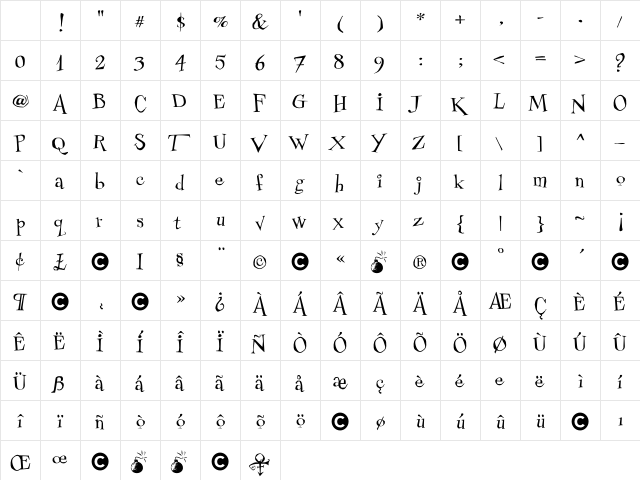
Complete Couchlover 97 glyph index. Displaying only characters natively supported by Couchlover 97 font.
Couchlover is a composed and adaptable typeface that performs quietly and consistently across a wide range of design contexts.